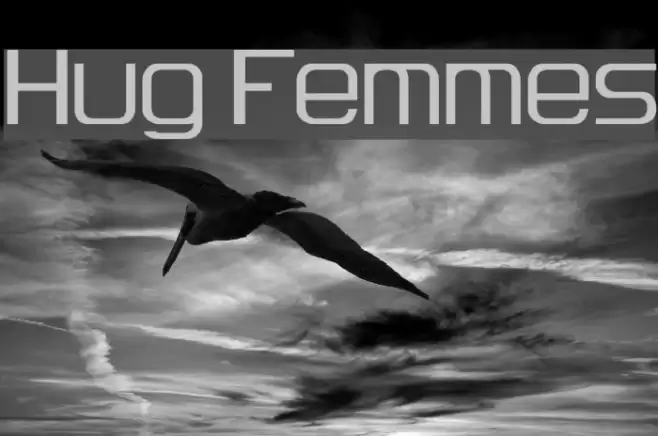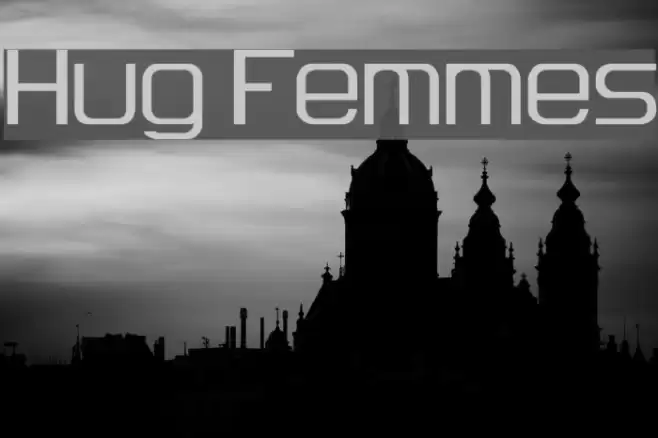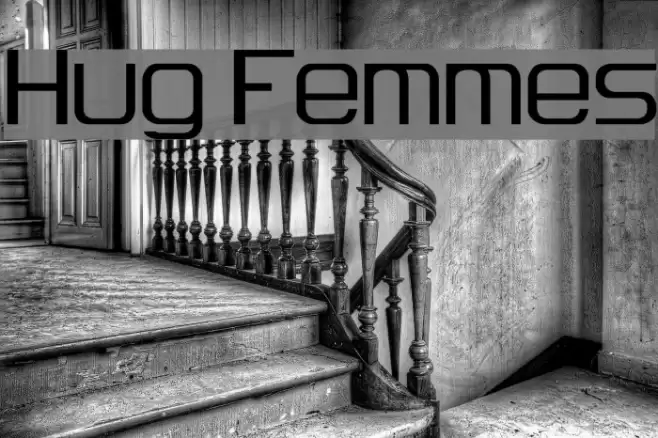
Hug Femmes Font
Hug Femmes Description
This font features a modern and geometric design with clean lines and a structured appearance. The uppercase letters are bold and slightly condensed, giving a strong and assertive look. The lowercase letters maintain a consistent style, with rounded edges that add a touch of softness to the overall design. The numerals are clear and easy to read, following the same geometric style as the letters. Special characters are uniquely designed, maintaining the font's modern aesthetic. The overall appearance is sleek and contemporary, making it suitable for a variety of design projects.
A modern, geometric font with clean lines and a structured appearance from Uncategorized fonts.
- Proposed Projects: Ideal for branding, advertising, and editorial design projects that require a modern and professional look.
- Use Case: Headlines, Logos, Branding